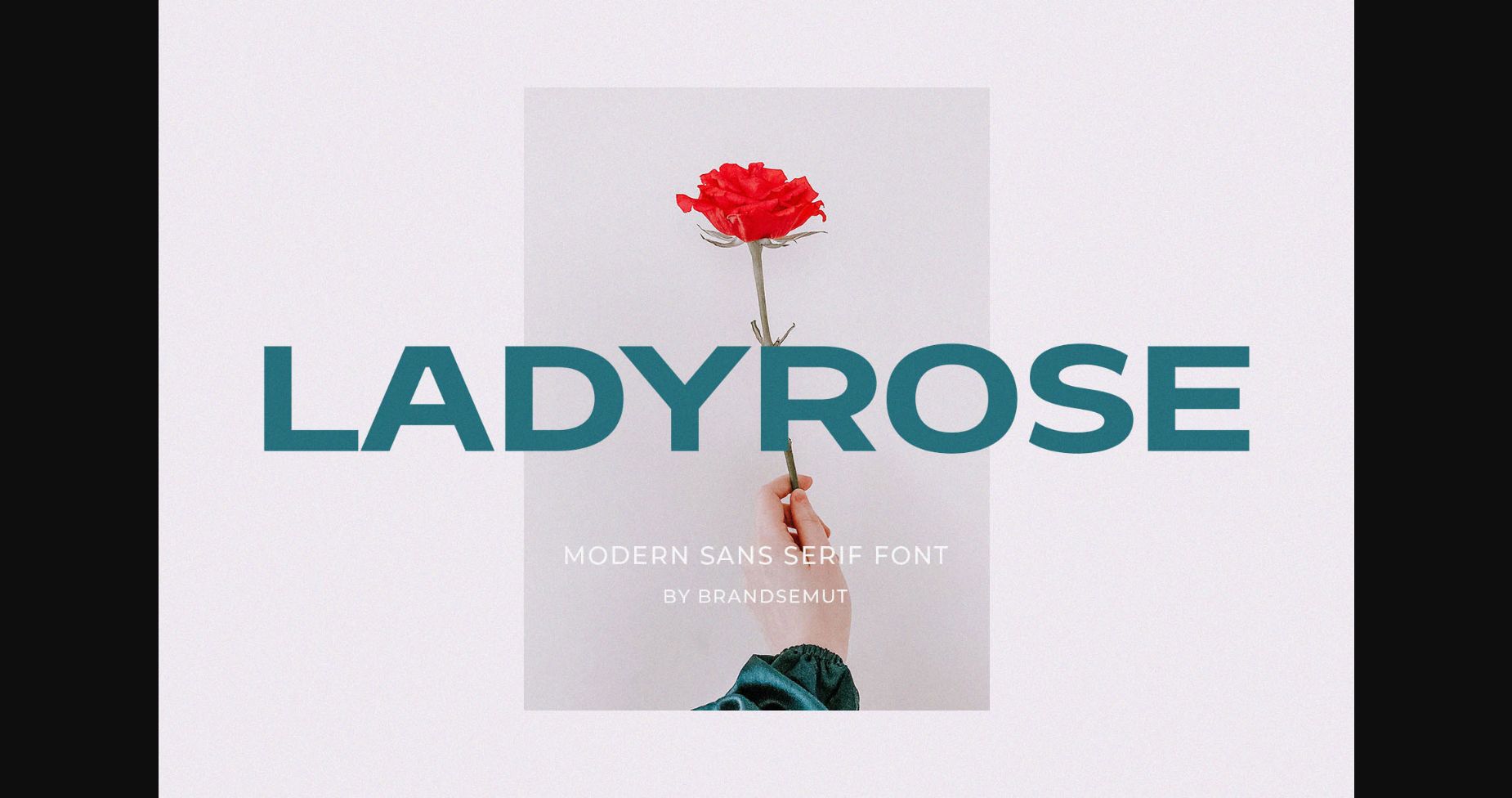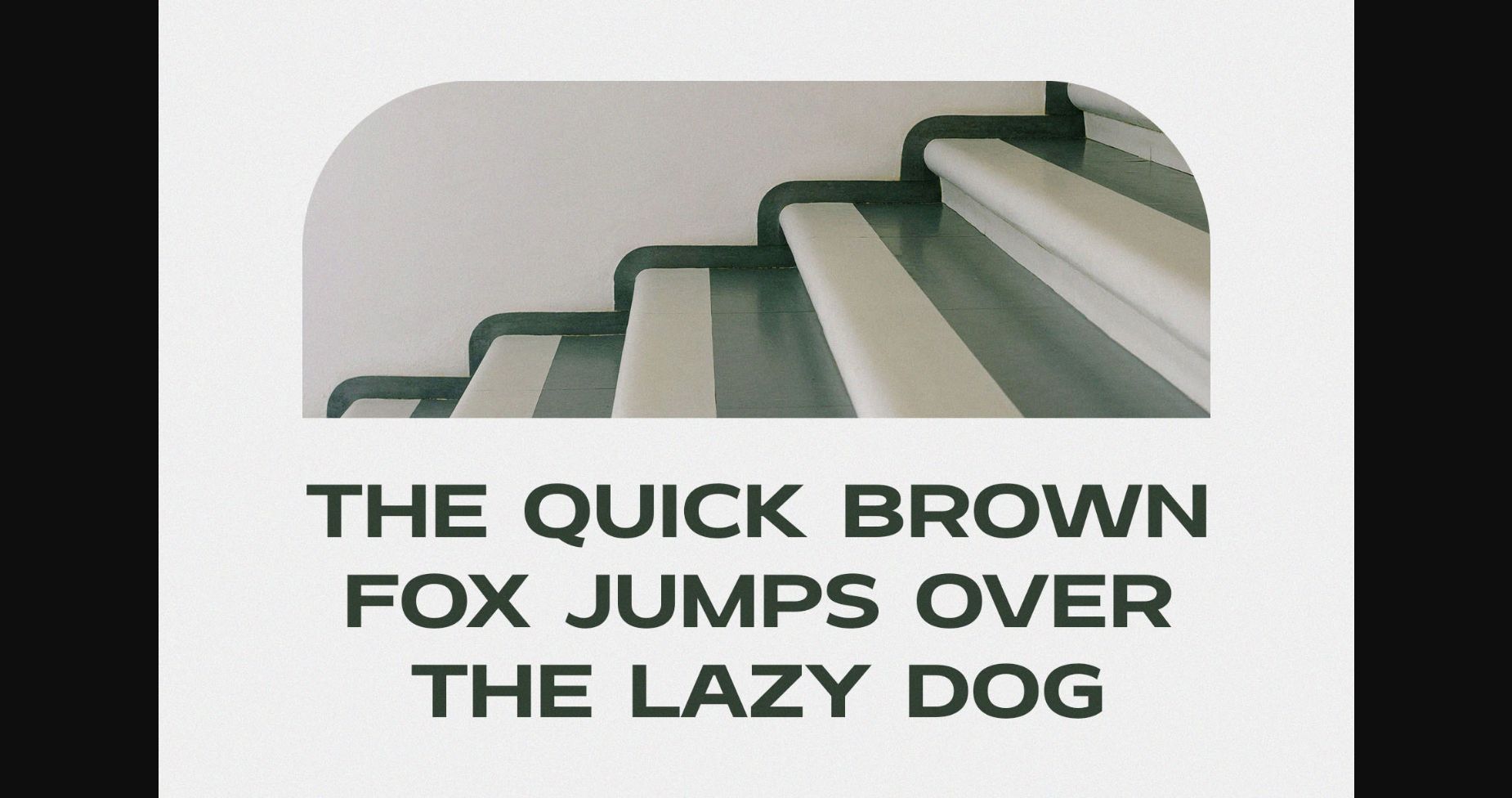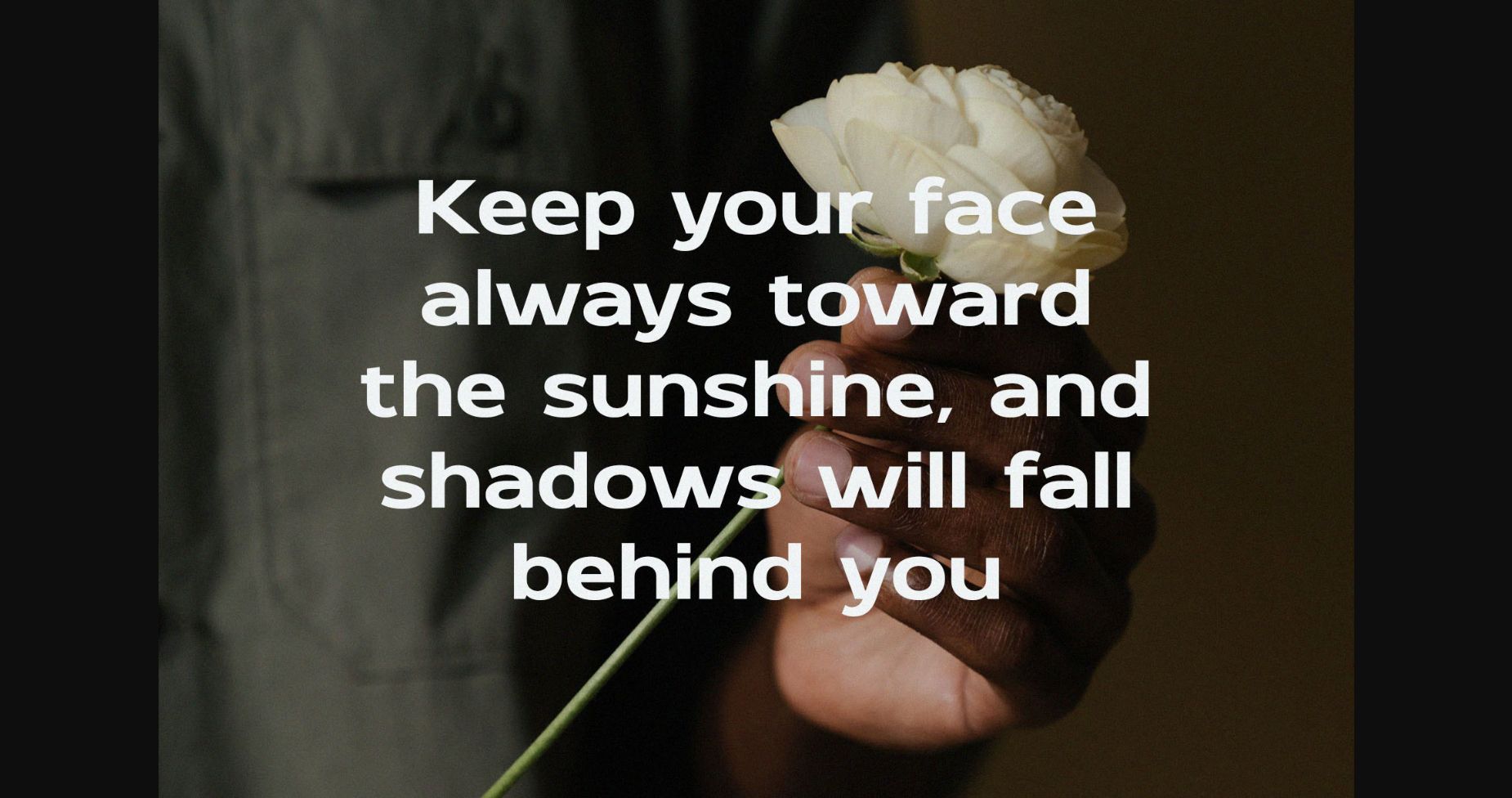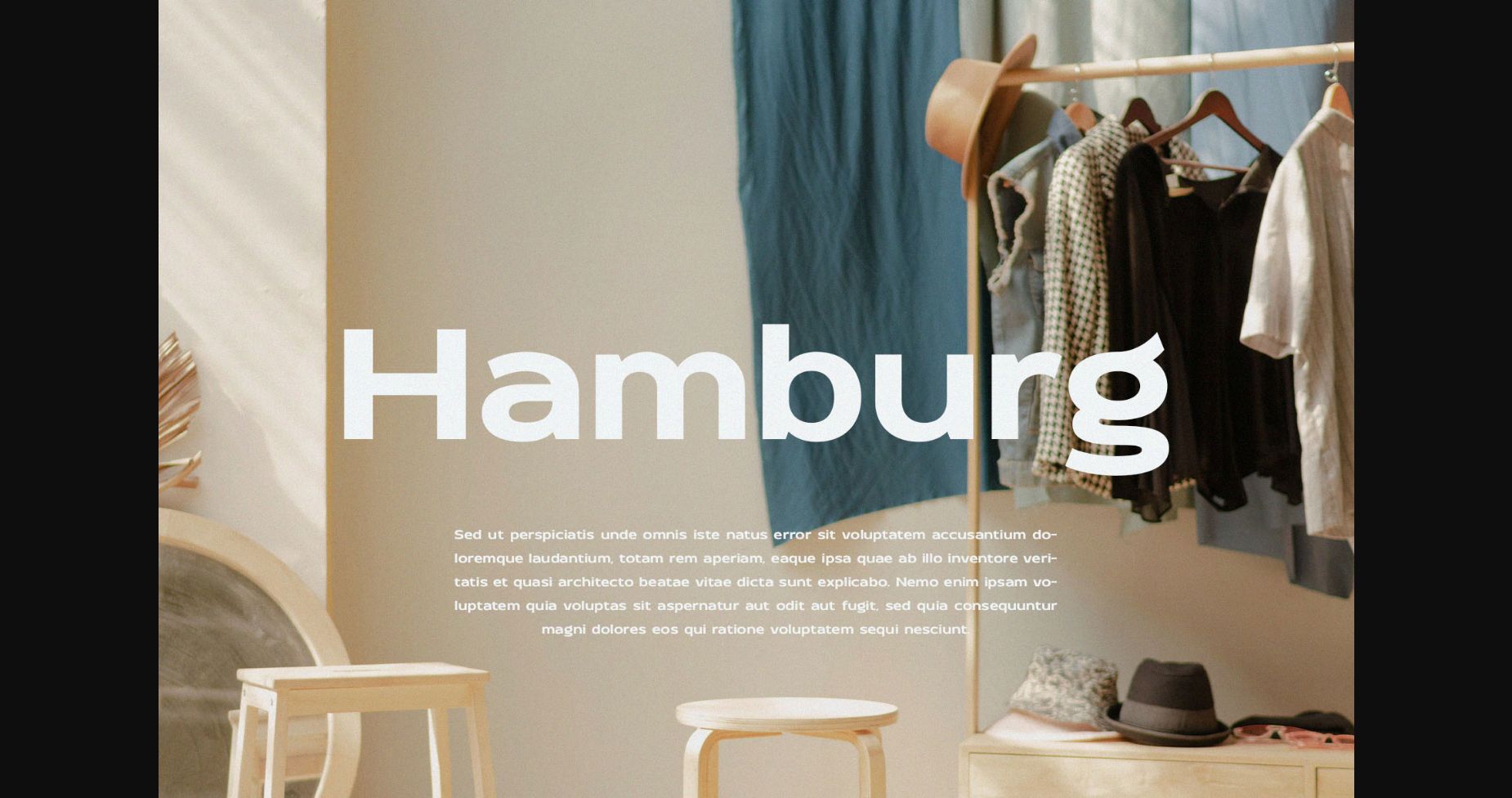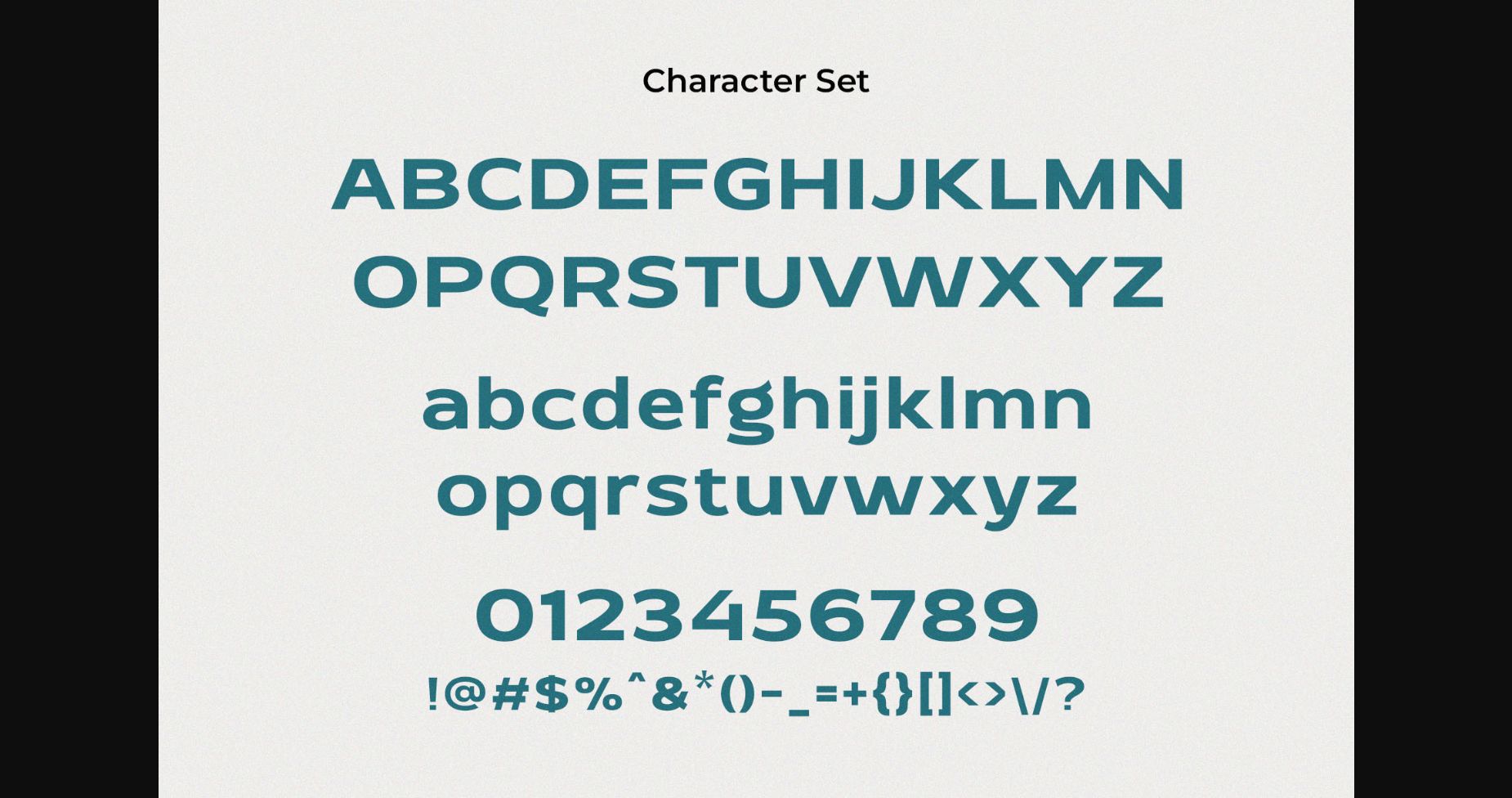
About Ladyrose Font
Introducing Ladyrose Modern Sans Serif
Ladyrose is a modern and simple font, best used as a display for headings, logos, branding, magazines, product packaging, and invitations. Ladyrose comes with clean lines and smooth curves giving any project an extra touch of class.